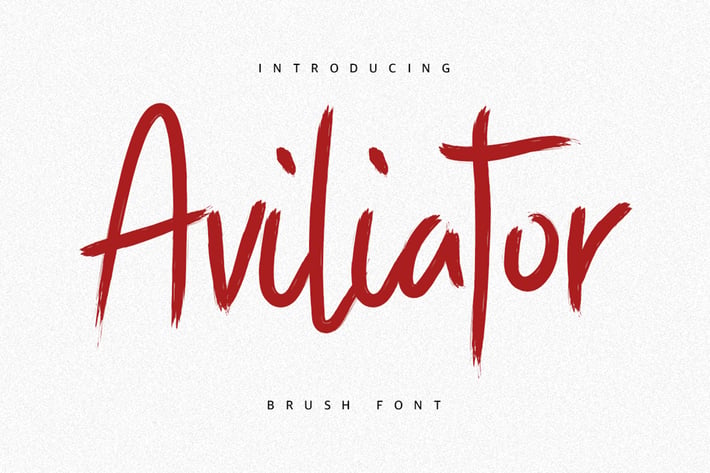
Aviliator Brush Font
Give your designs an authentic brush handcrafted feel. "Aviliator" is perfectly suited to stationery, logos and much more. Included Stylistic Alternates & Ligatures.